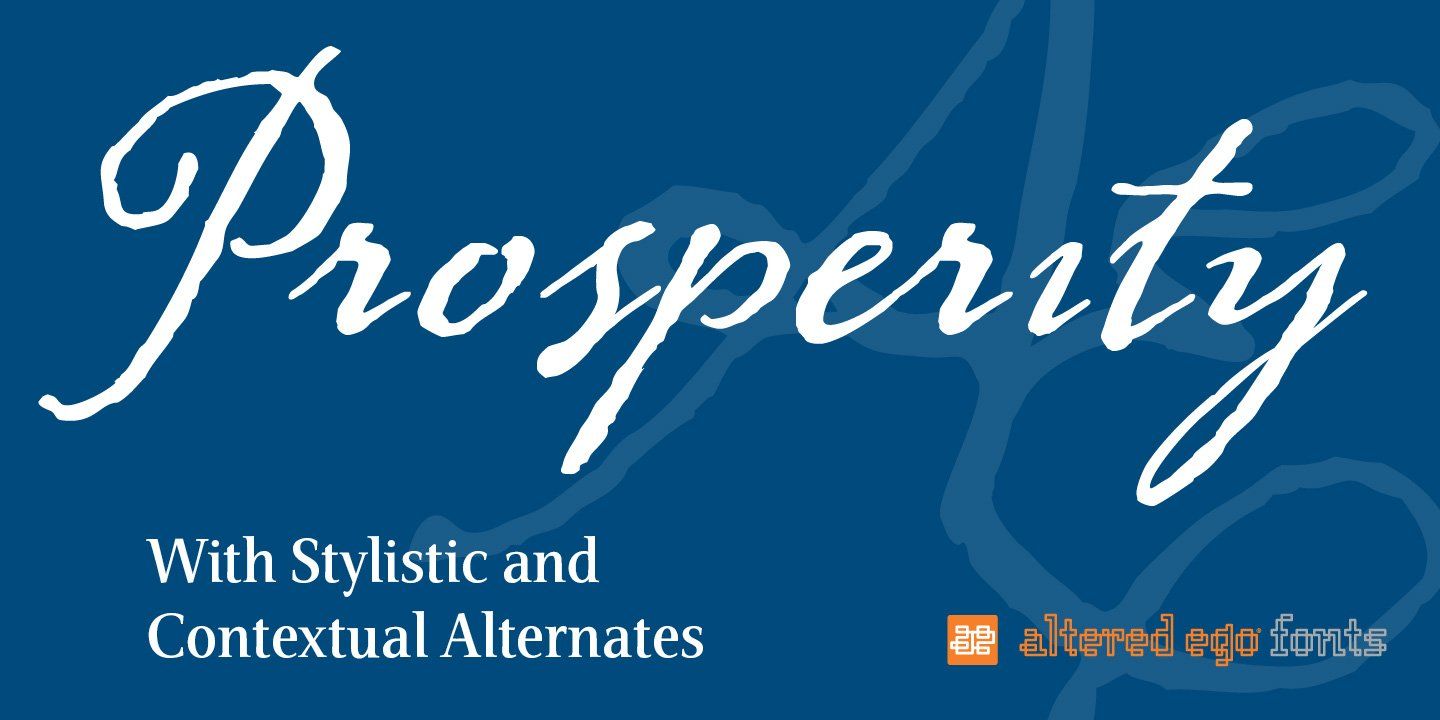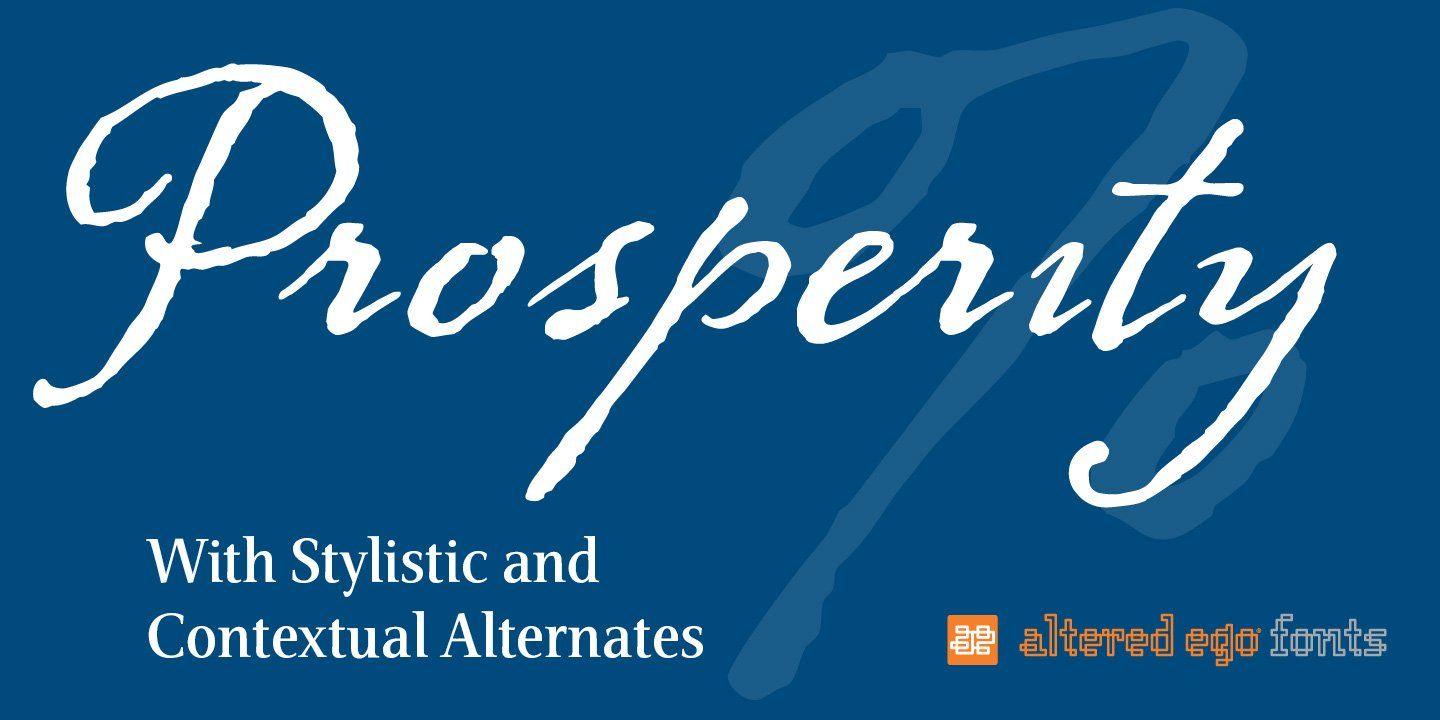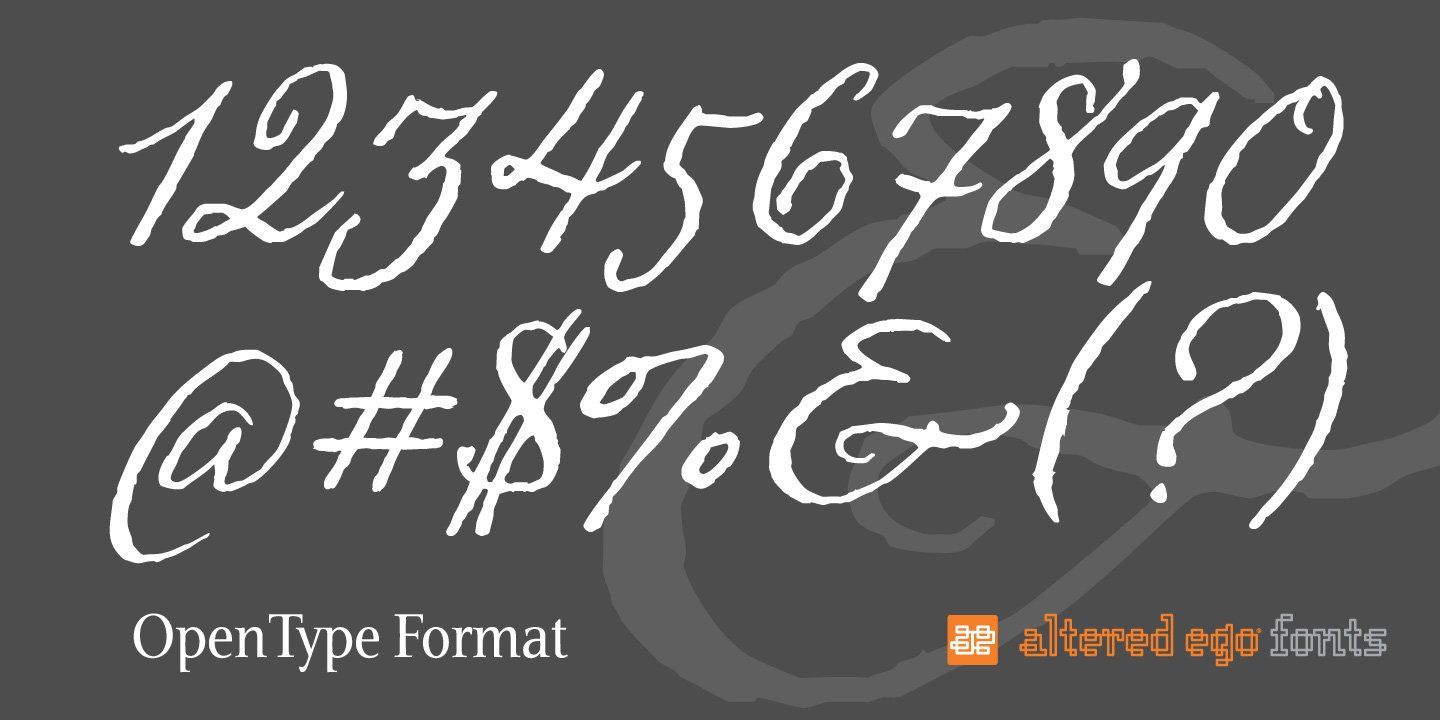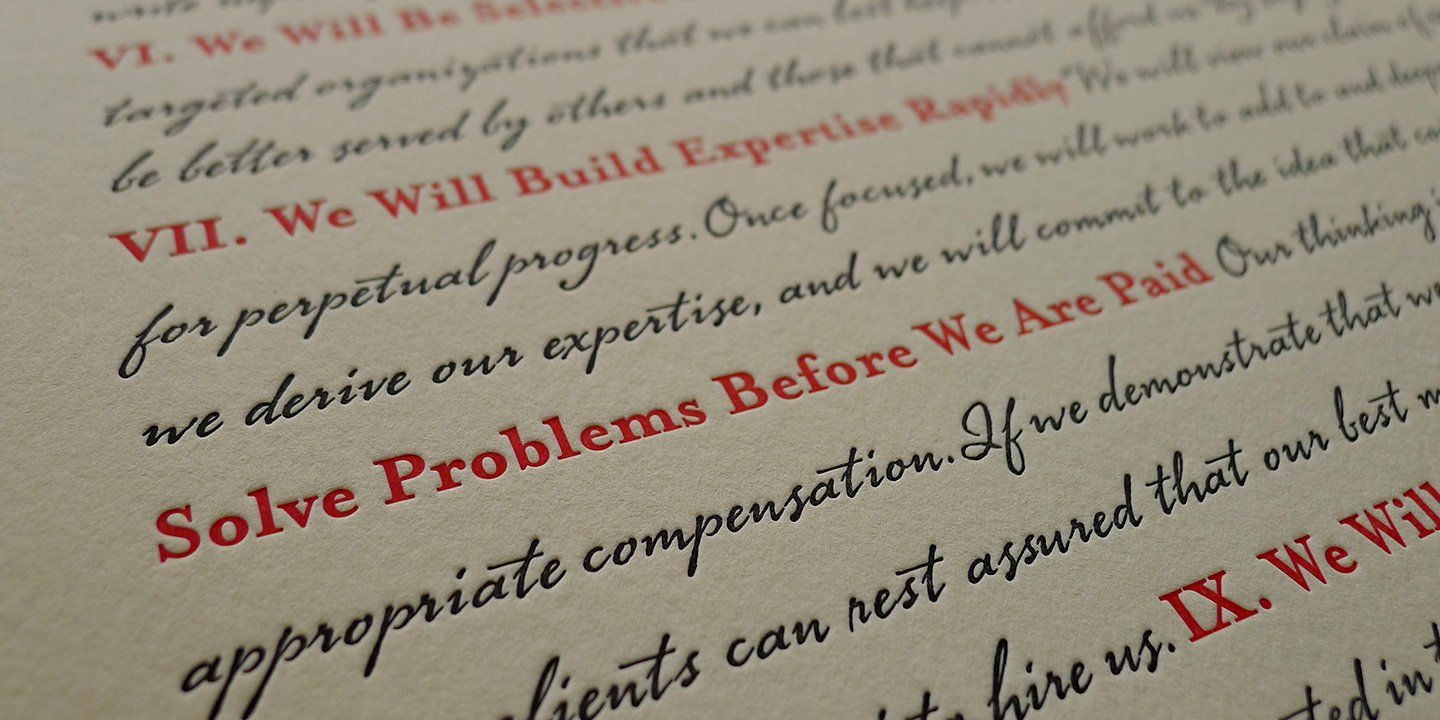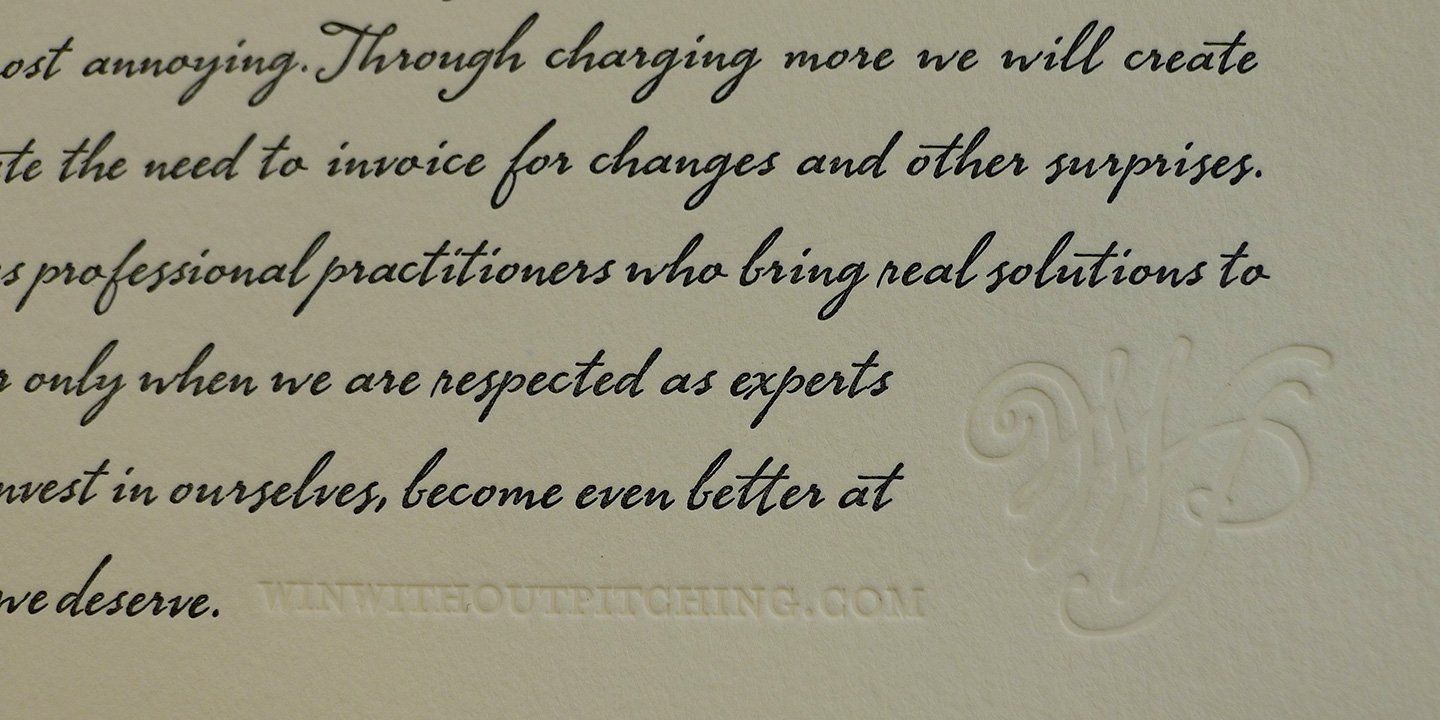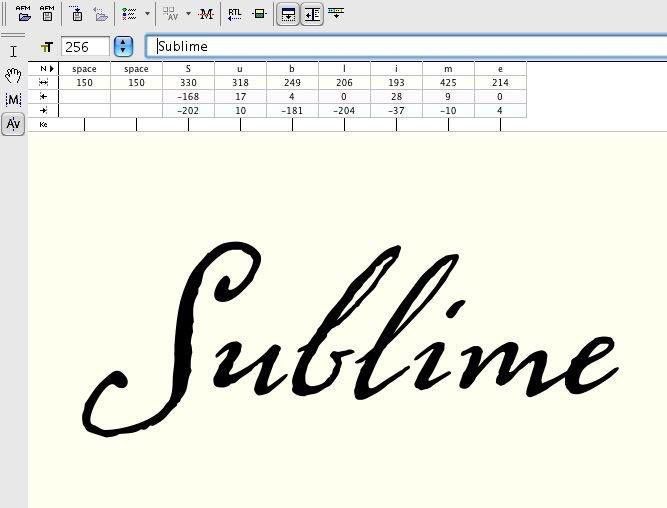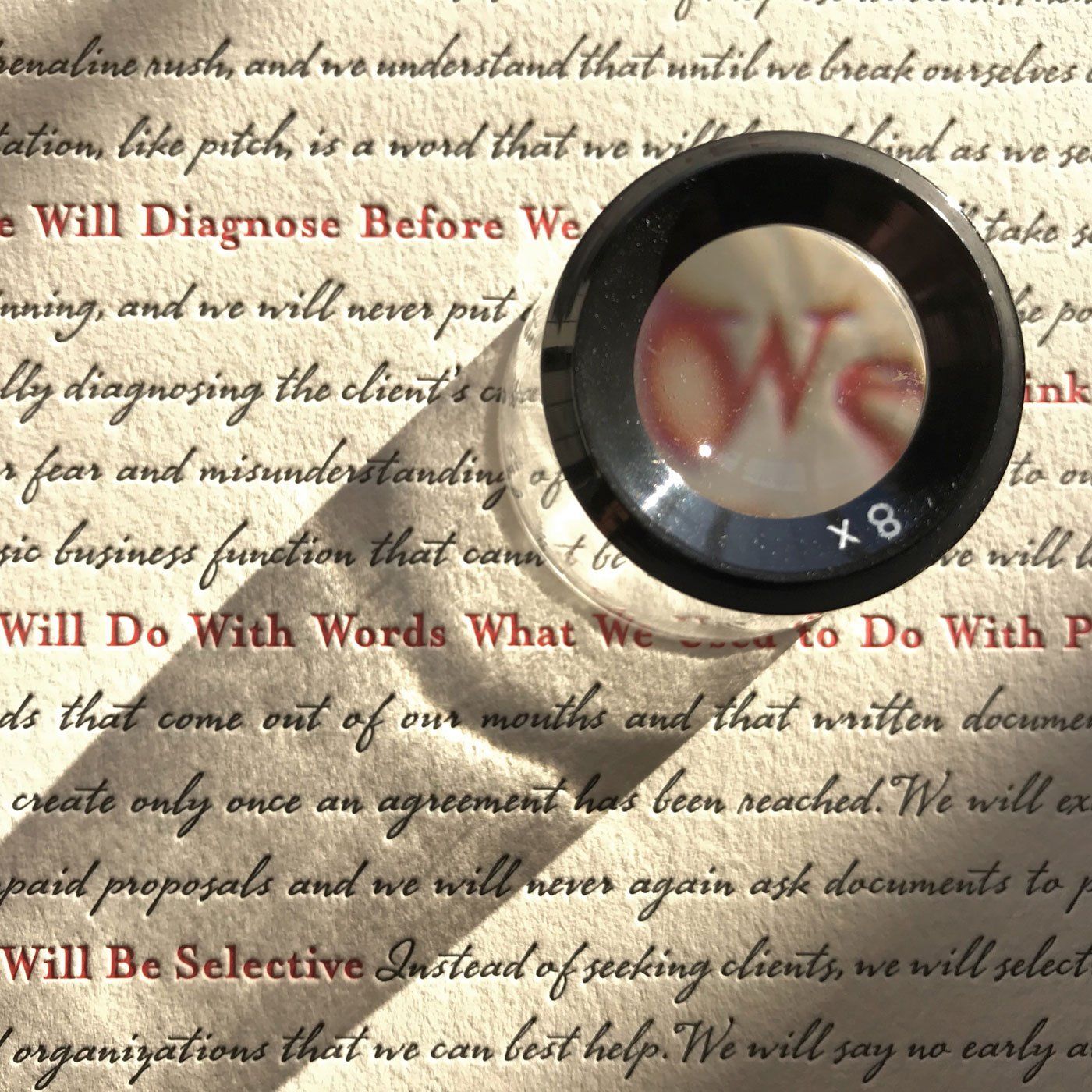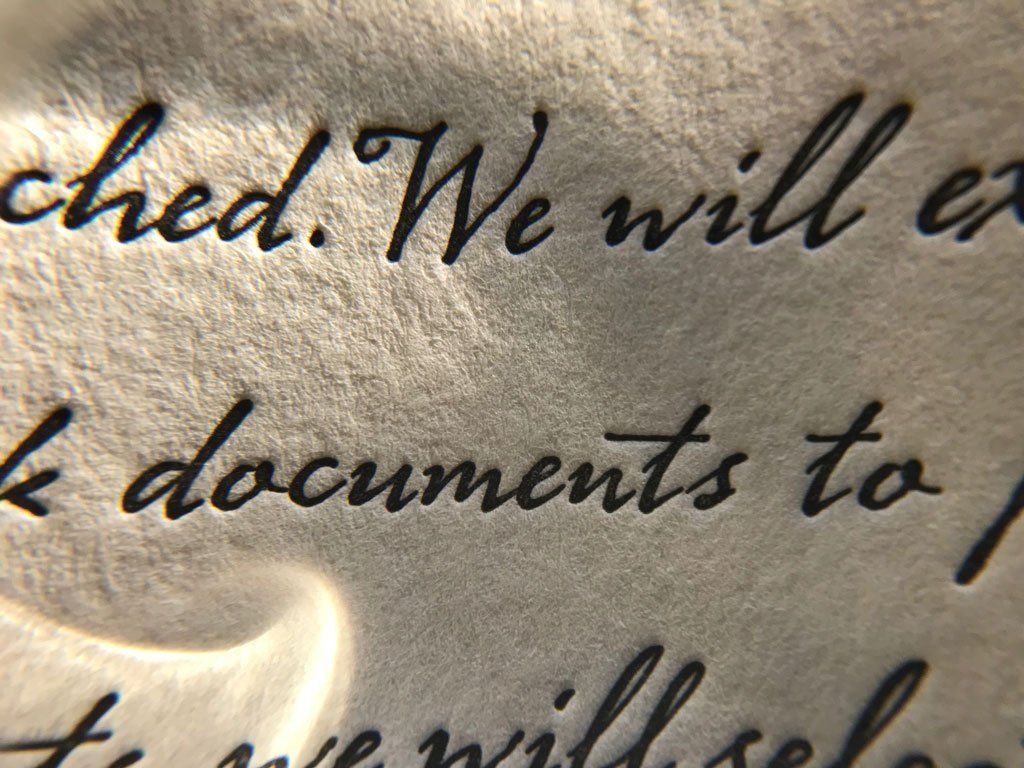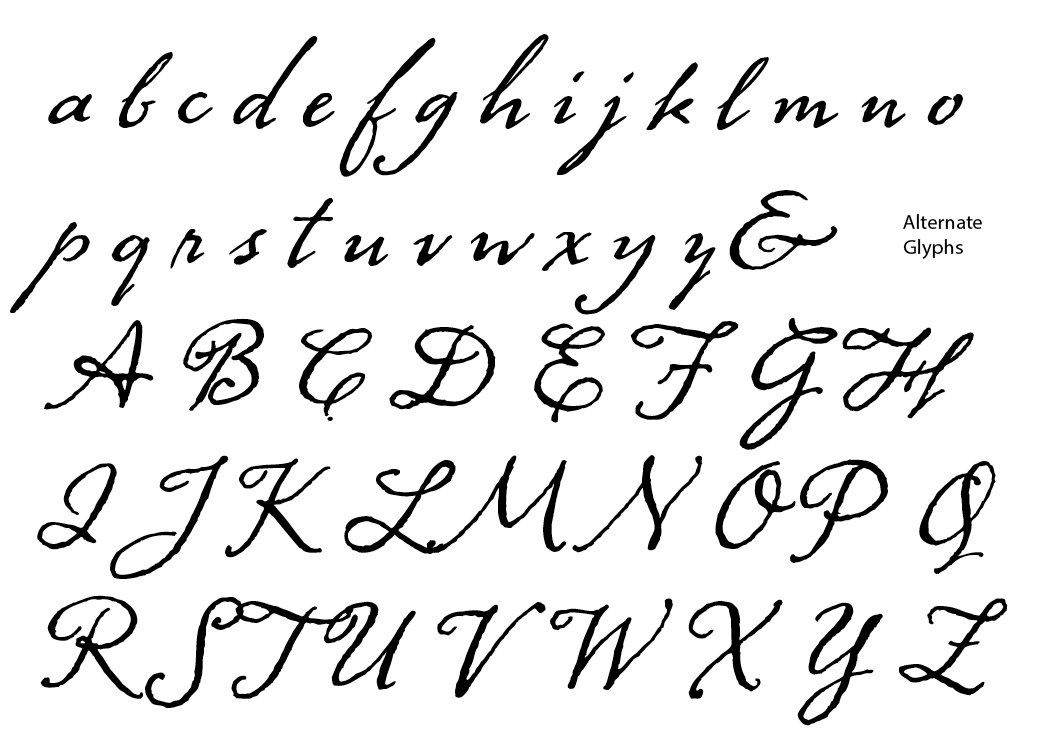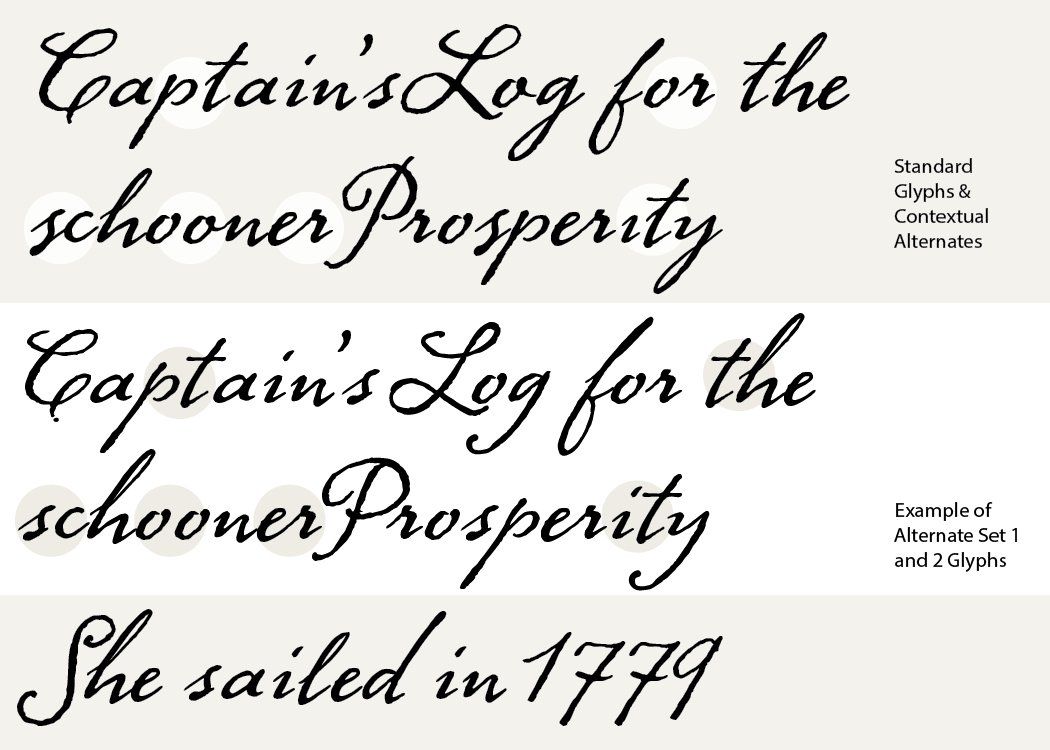
Altered Ego Prosperity
Hand written script font for packaging, publications, and branding
Prosperity is a free-flowing script font with an historic aesthetic.
Well suited for headlines, packaging and display applications, AE Prosperity will be a robust and versatile addition to your script library.
It’s purposefully designed to infer the visual connections of letters for a hand-lettered feel. Some characters will connect, and others will guide your eye to the next letter form, making it highly legible.
A Name Inspired by a Colonial Privateer
In 1779, the schooner Prosperity sailed the high seas. Commissioned by a young continental congress, with 6 guns & at twenty tons, she sailed under a Letter of Marque for patriotism and profit.
Inspired by the spirit of a colonial profiteer, AE Prosperity is aptly named.
AE Prosperity is Two Fonts in One
Hand Lettered Script Font OpenType Variations and Character Sets
Who uses the Prosperity AE font?
Altered Ego Prosperity is preferred by authors like Blair Enns for the Win Without Pitching Manifesto, healthcare systems such as John Hopkins, and discerning brands in every sector.
Prosperity AE has been spotted in use around the world. It’s especially beautiful in letterpress and large scale usage such as trade show displays.